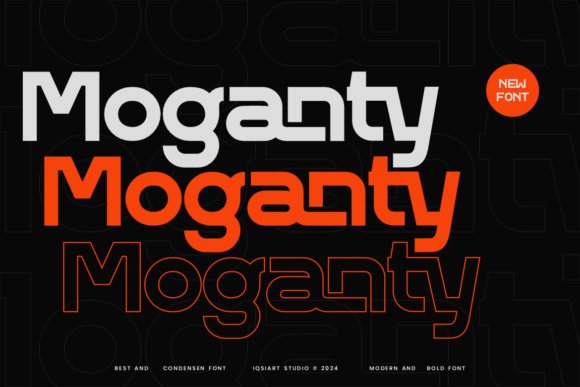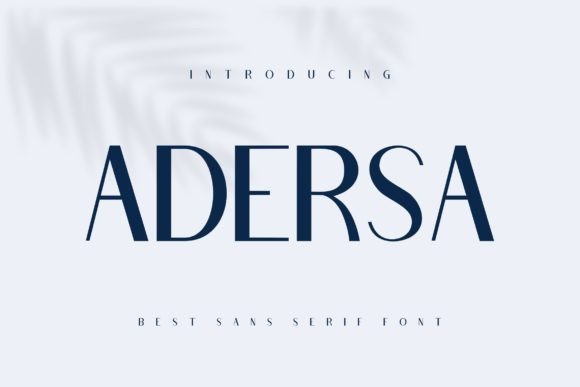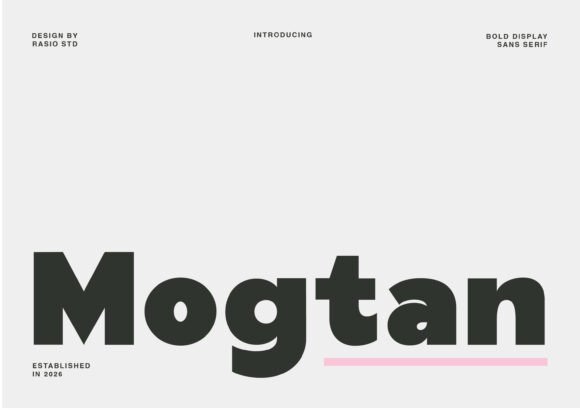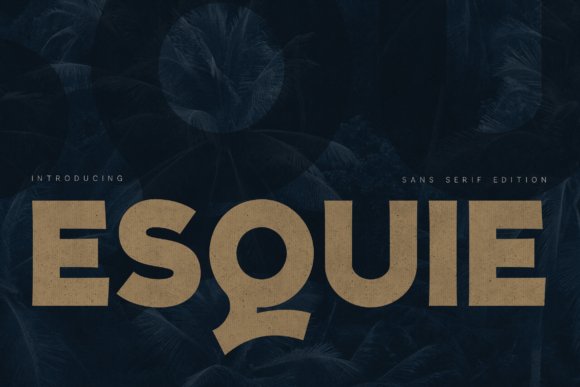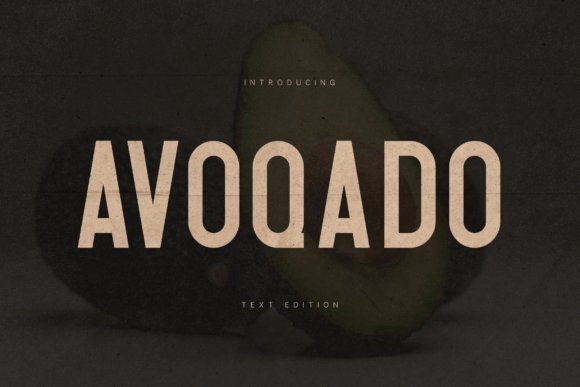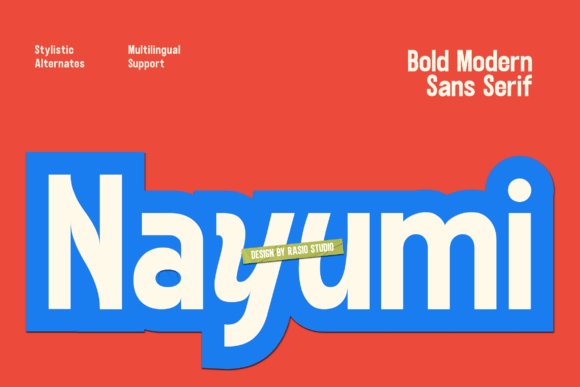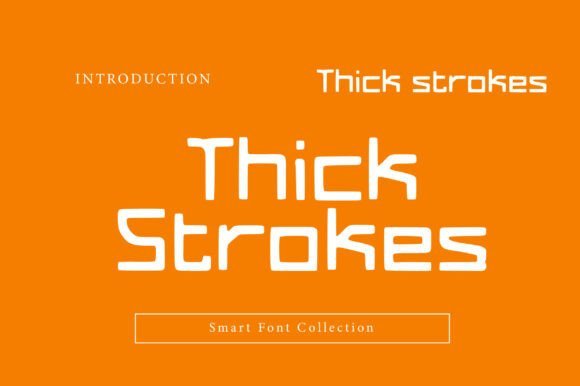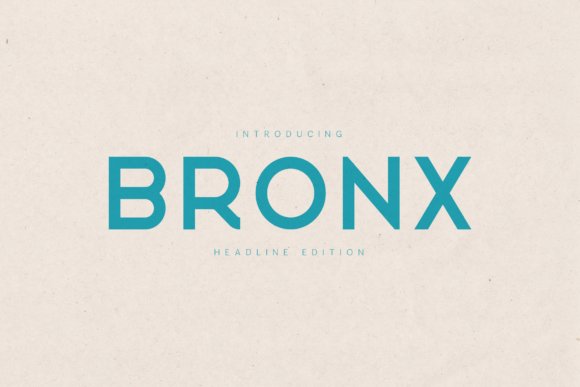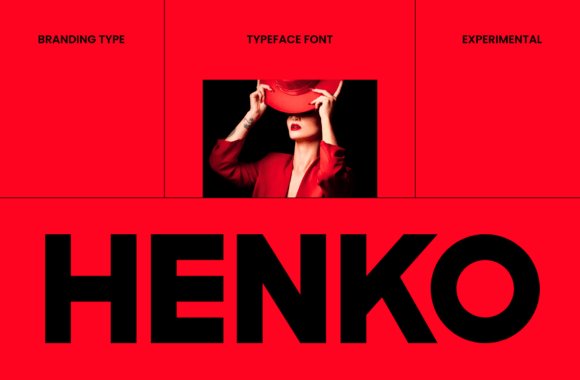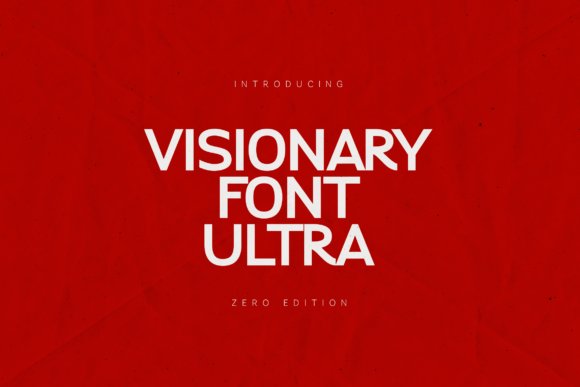
31 Best Pizza Logo Fonts for Italian Restaurant Branding 2026
Selecting the right Pizza Logo Fonts is a key step in creating a memorable brand for any pizzeria or Italian eatery. The look of your text communicates the flavor of your food before a customer even takes their first bite.
Choosing a style that reflects your kitchen’s personality makes a huge difference in how people perceive your business. Whether you run a traditional wood-fired oven spot or a fast-paced delivery service, these 31 options offer a variety of aesthetic choices.
These selections prioritize legibility and character, ensuring your name looks professional on pizza boxes, social media, and storefront signs. Let’s look at the top picks for 2026 to help your business stand out from the competition.
1. Moganty Font
Moganty Font – Moganty delivers an authoritative weight that captures the eye without feeling cluttered. Its sturdy geometry feels reliable, making it an excellent pick among Pizza Logo Fonts. The letterforms remain clear even at smaller sizes, ensuring your brand identity stays sharp on print menus or digital storefronts.
This typeface skips extra decorations to emphasize raw, solid strokes. It excels in high-contrast layouts where visual impact is the priority. Many creatives select this look for quick-service restaurant branding because it looks both professional and welcoming.
2. Adersa Font
Adersa Font – Adersa breaks away from the norm by blending thick lines with a subtle rhythmic energy. It ditches the cold feel of standard sans serifs for a personality that feels genuinely warm. This choice works beautifully for visual headers that need to pop without being aggressive.
The wide stance of the characters helps fill a horizontal logo space perfectly. It feels less formal than traditional block fonts, making it a great fit for brands aimed at a youthful, modern audience. The terminals are softened just enough to keep the overall design feeling approachable.
3. Mogtan Font
Mogtan Font – Mogtan provides a balanced approach to heavy-set lettering by adding gentle curves to its otherwise rigid structure. The design feels grounded and professional, lending an air of longevity to a new brand. It stands out on physical packaging where its broad strokes create a very readable silhouette.
The typeface includes a well-crafted set of characters that maintain their integrity in both digital and physical formats. Its geometric foundation creates a clean alignment that looks great in large-scale print. This font communicates a sense of quality and craftsmanship through its thick, deliberate proportions.
4. Esquie Sans Serif Font
Esquie Sans Serif Font – Esquie commands attention with its heavy weight and minimalist geometry. This typeface skips unnecessary decorative elements, opting for a clean, architectural look that works well on digital screens or large-scale print materials. Its balanced proportions make it a reliable choice for brand identities that need to project strength and clarity.
When searching for Pizza Logo Fonts, this font provides the legibility needed for quick-service signage and menus. The thick strokes ensure the brand name stays visible from a distance, even against busy backgrounds or textured paper. Designers often rely on these crisp edges to maintain a professional feel while keeping the overall aesthetic approachable.
5. Avoqado Sans Serif Font
Avoqado Sans Serif Font – Avoqado brings a fresh, contemporary energy to any graphic design project. It features wide apertures and consistent line weights that give it a friendly yet confident personality. This typeface excels in editorial layouts where clarity is the top priority, allowing the message to speak clearly without distraction.
The design feels light enough for body copy but has enough weight to carry a headline on its own. For packaging or social media graphics, it offers a distinct look that separates a brand from more traditional competitors. It bridges the gap between high-end fashion aesthetics and everyday utility quite effectively.
6. Nayumi Sans Serif Font
Nayumi Sans Serif Font – Nayumi strikes a rare balance between soft, rounded edges and a sturdy geometric frame. These chunky letterforms project a sense of playfulness and warmth, making them an excellent pick for lifestyle products or youth-focused marketing. The subtle curves soften the impact of the bold strokes, creating a visual rhythm that feels inviting.
Use these stylistic alternates to add character to streetwear labels or cafe window displays. Because the font is so expressive, it works best when paired with simpler, lighter typefaces that do not compete for the viewer’s eye. It makes a statement on stickers, pins, or event posters where you want the typography to feel tactile and energetic.
7. Thick Strokes Font
Thick Strokes Font brings a heavy, architectural presence to any design layout. Its ultra-wide characters feel grounded and reliable, making it a top pick for industries that prioritize strength and stability. When searching for Pizza Logo Fonts, this typeface stands out because its chunky letterforms mimic the satisfying density of a thick crust.